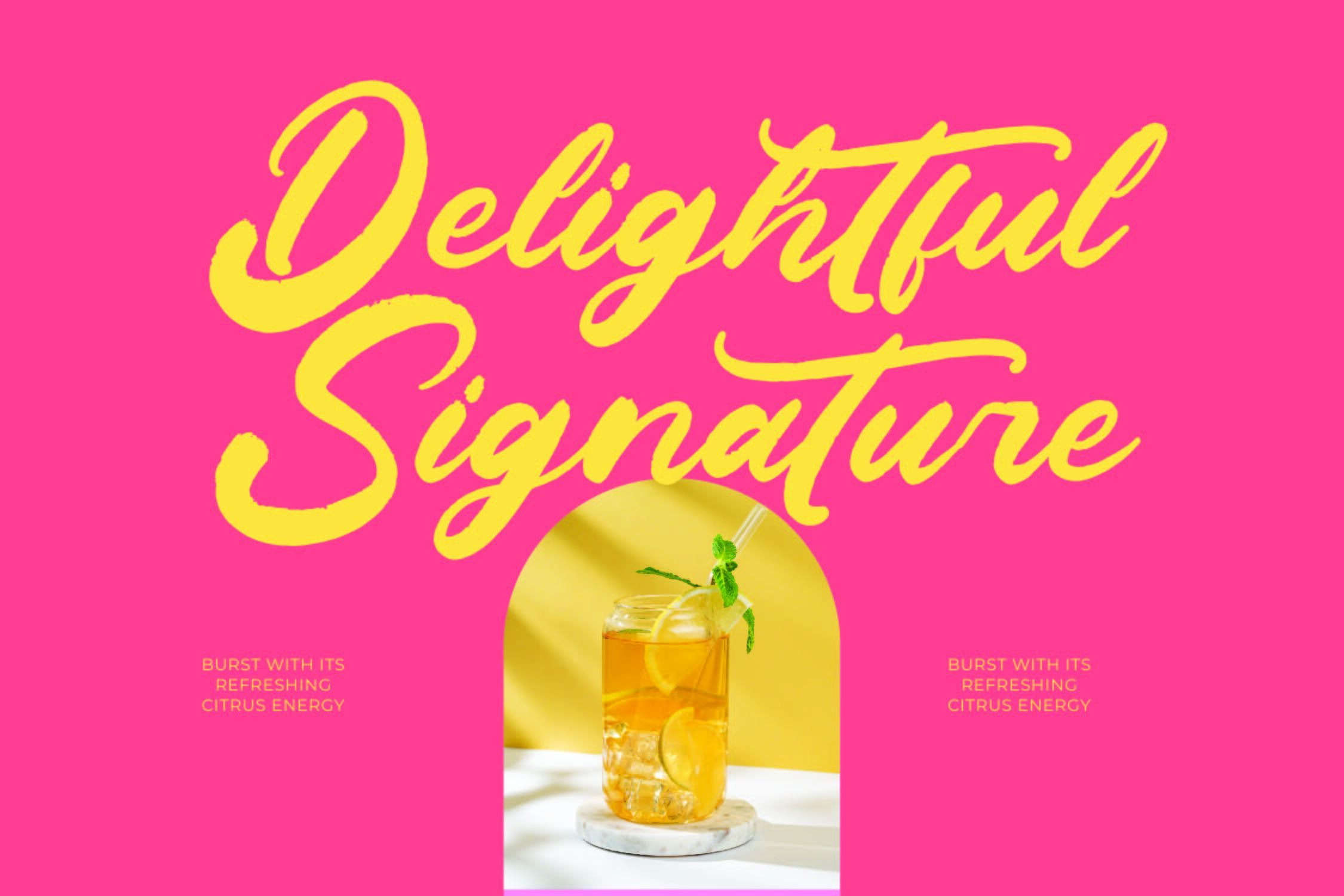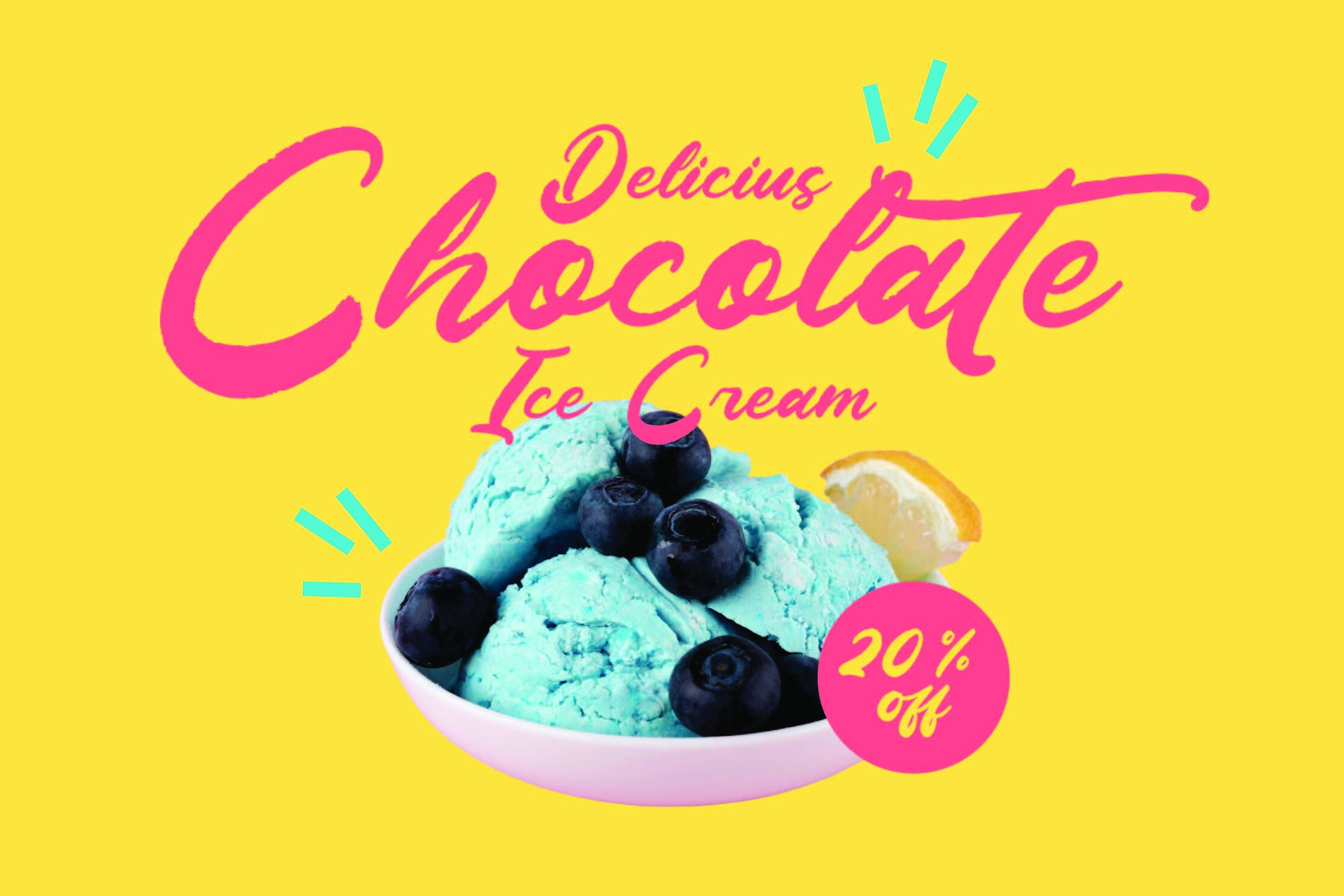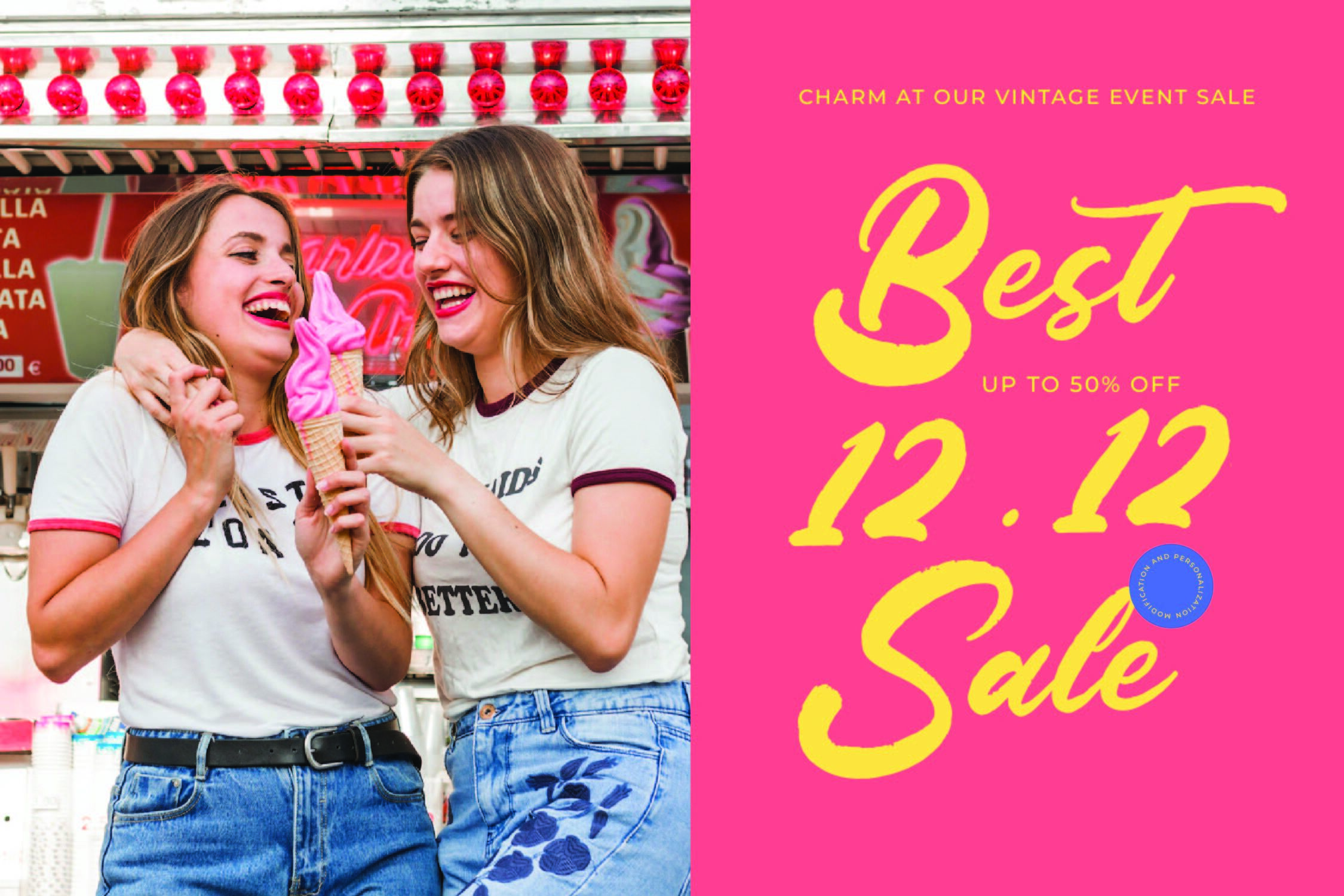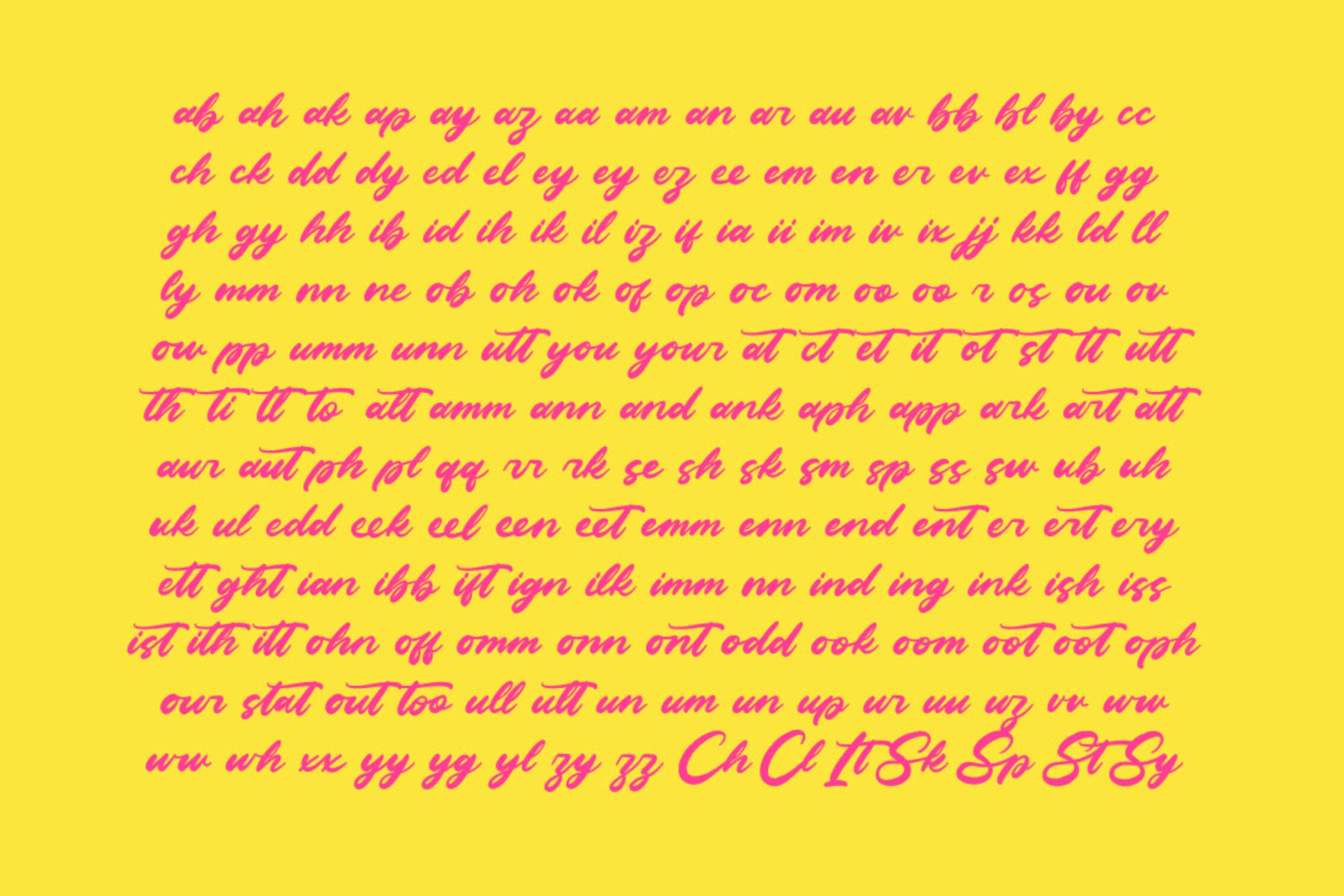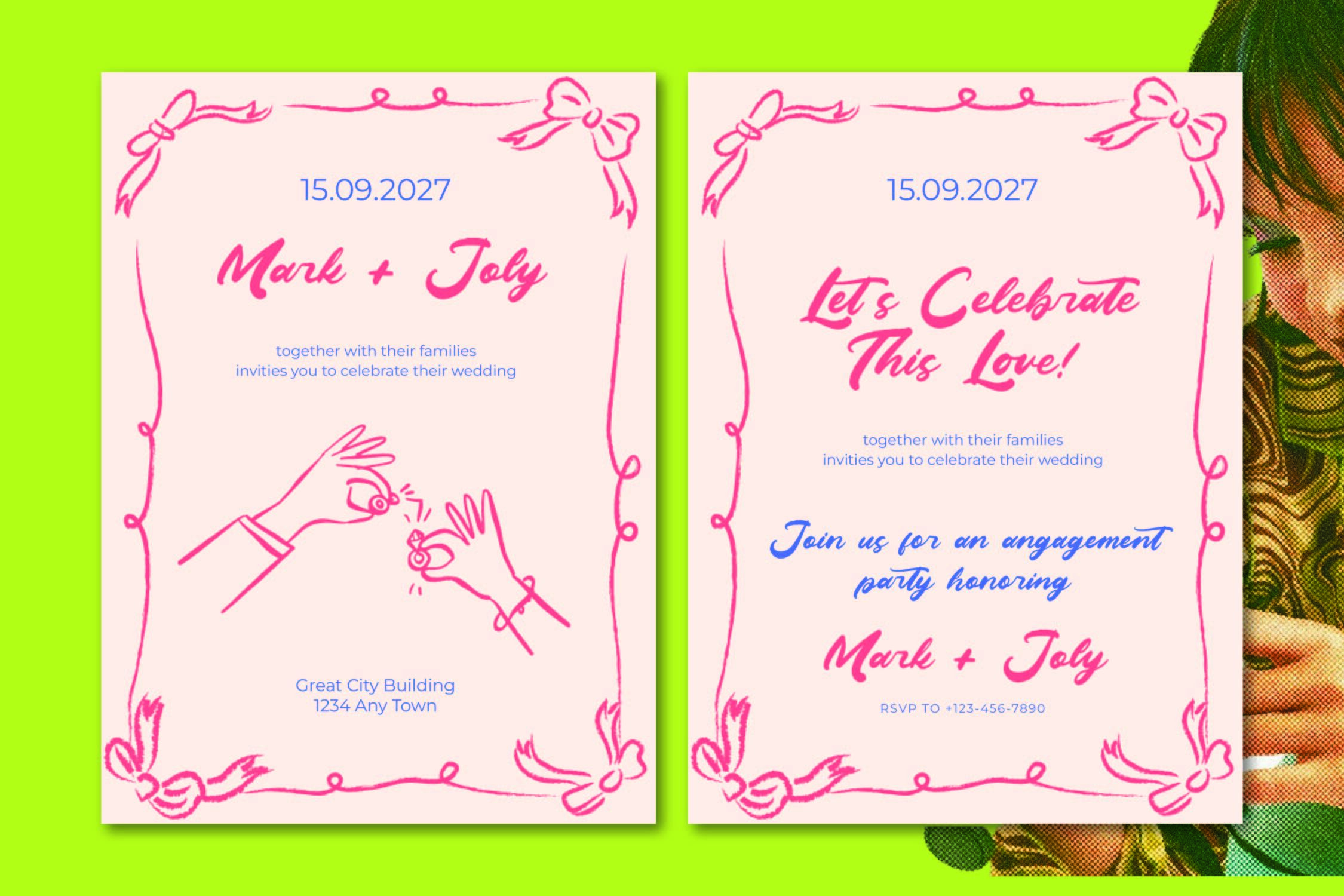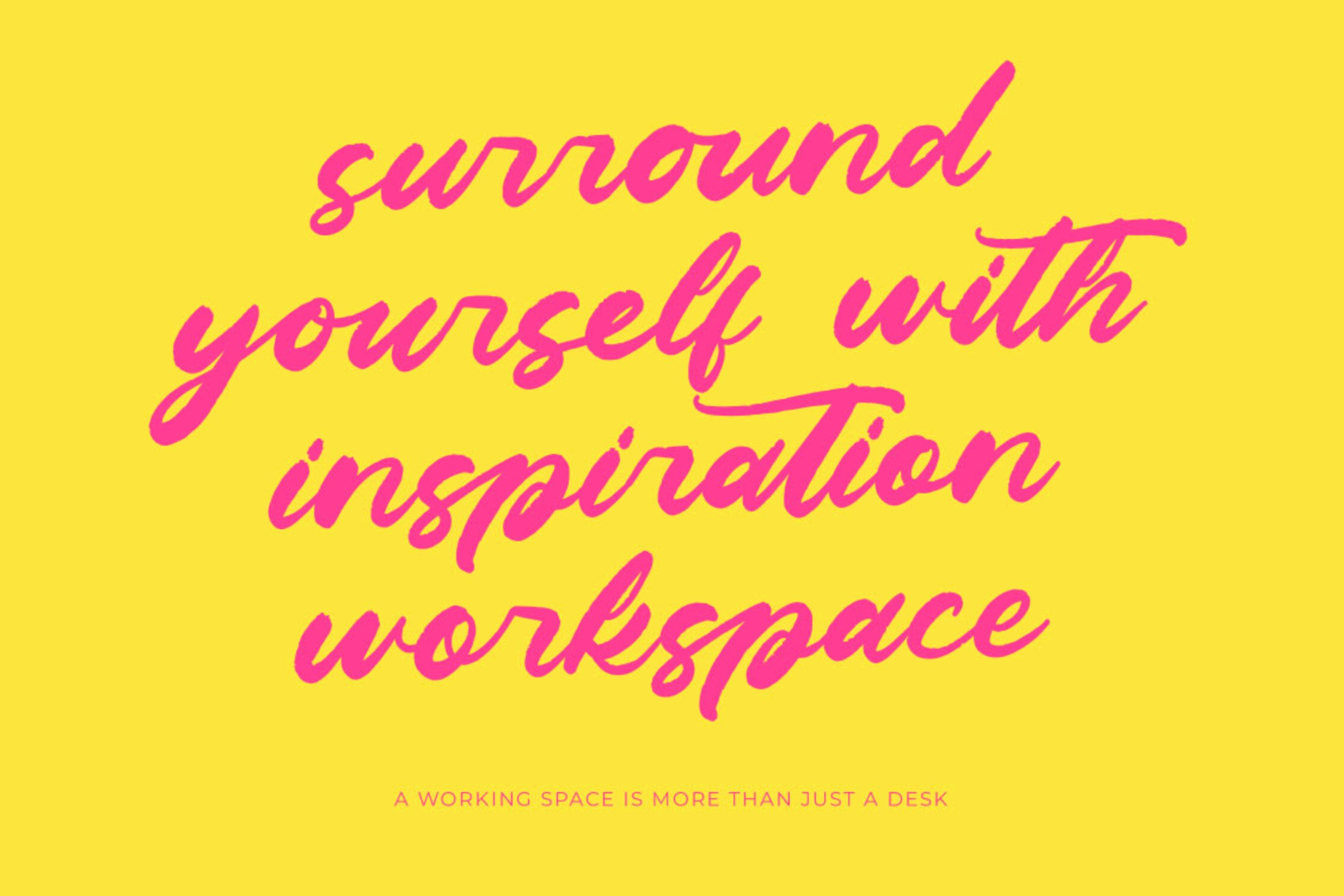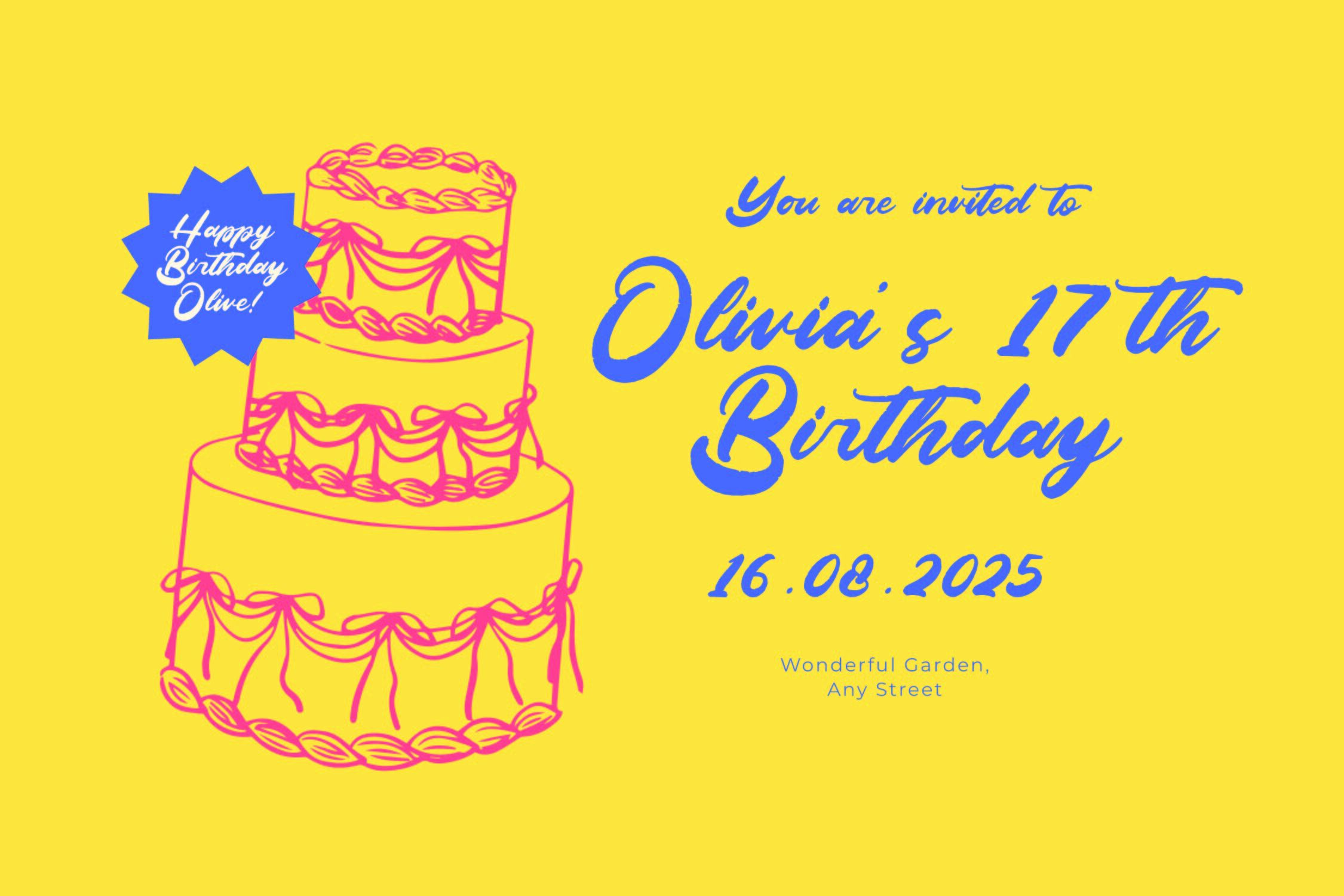
Jichelo Rosela - Bold Brush Font , Jichelo Roseta is a bold brush script font with energetic strokes, handcrafted texture, and an expressive summer-inspired vibe. Its lively curves and natural brush movement create a strong, stylish personality perfect for posters, fashion branding, social media graphics, merchandise, invitations, and creative advertising. The font carries a fun, youthful spirit that instantly makes any design feel warm, vibrant, and confidently handwritten. Packed with 187 ligatures and 52 alternates, Jichelo Roseta gives you a massive range of stylistic possibilities. Whether you're crafting dynamic logotypes, organic headlines, signature-style titles, or modern lifestyle visuals, this brush script brings richness, flexibility, and artistic charm to every project.